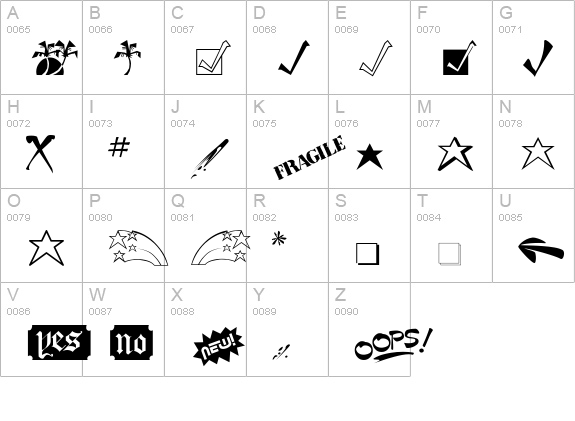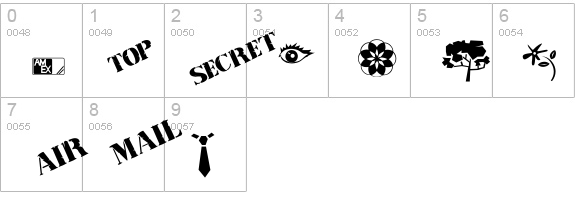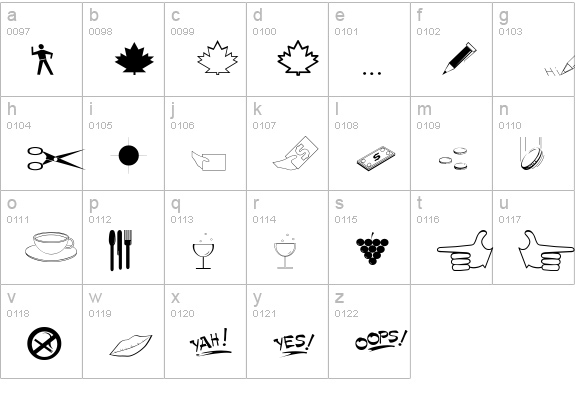
Dingbat3 font is a whimsical and playful typeface that is sure to add a touch of charm to any design project. This font features a collection of unique and creative dingbats and symbols that are perfect for adding decorative elements to your work. Whether you are designing greeting cards, invitations, or social media graphics, Dingbat3 font has you covered with its wide range of fun characters. What makes Dingbat3 font even more appealing is that it is available for free download at FontsMarket.com. This means you can easily access this delightful font and start using it in your projects without any cost. With its charming and versatile design, Dingbat3 font is a must-have for any designer looking to add a touch of whimsy to their creations. Download it today and let your creativity soar with Dingbat3 font!